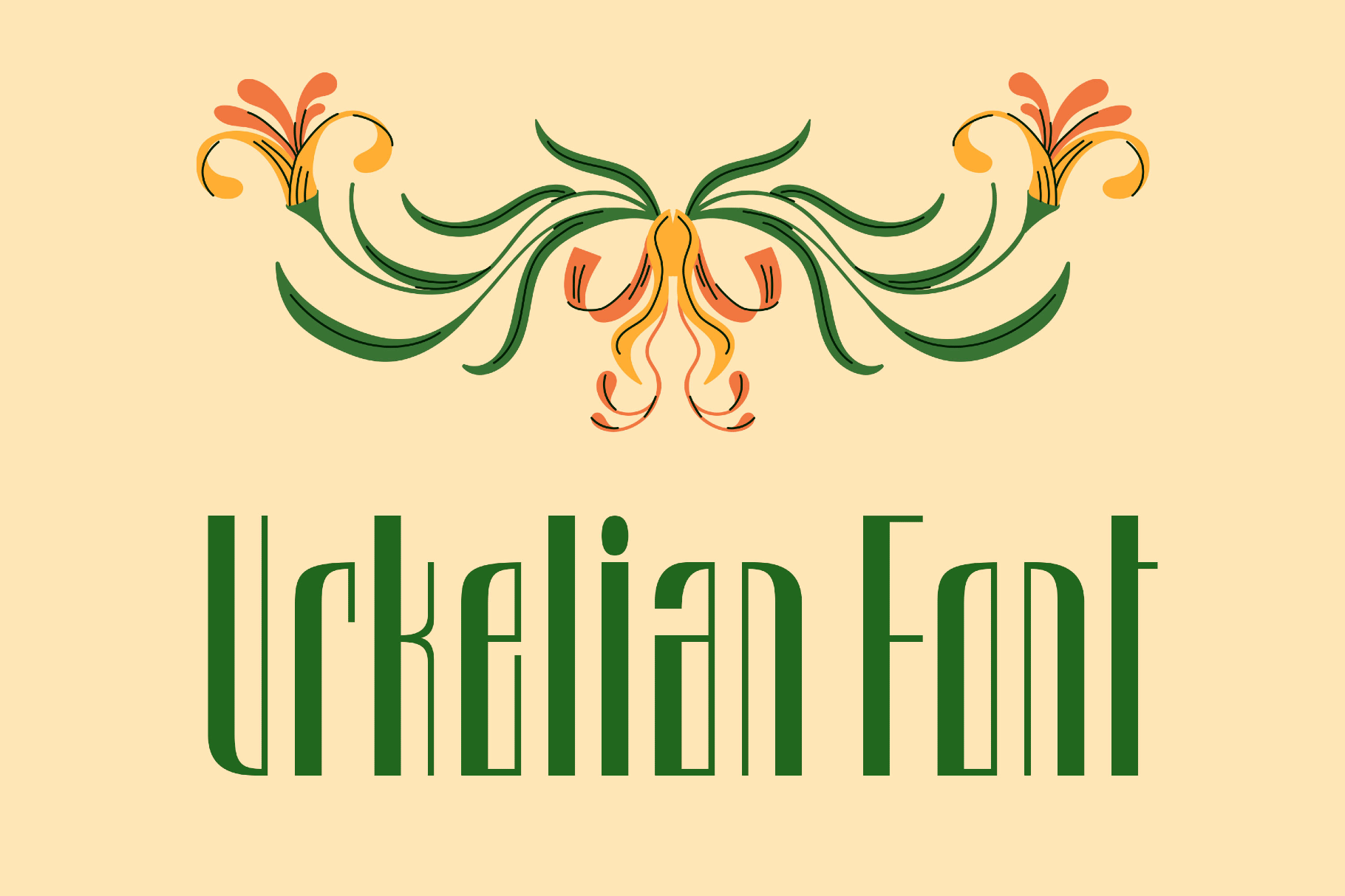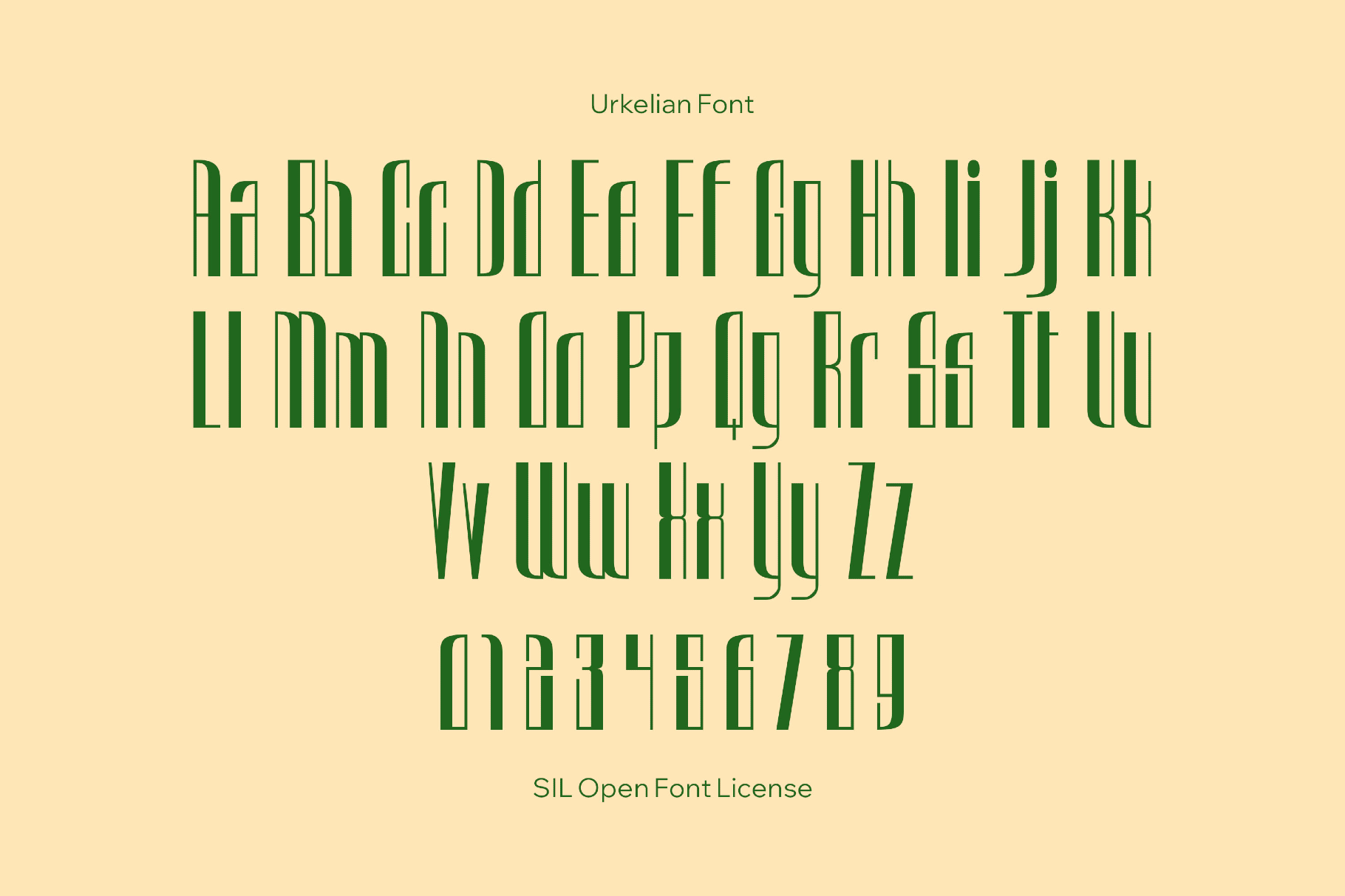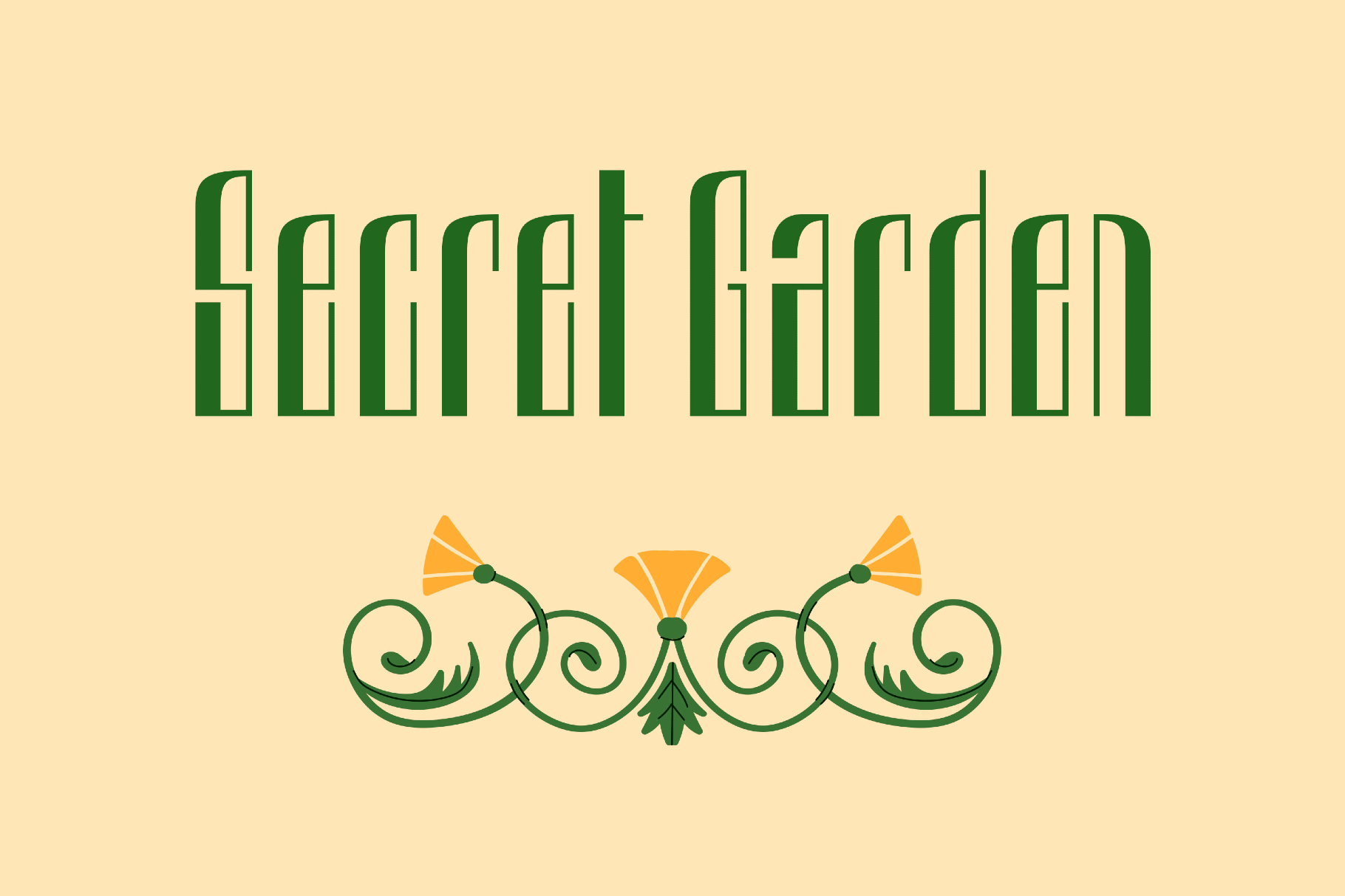
Urkelian Font
Urkelian
Urkelian is a chunky, off-kilter display font with awkward curves and nerdy bravado that recalls early-’90s sitcom title cards, novelty computer graphics, and mall-era pop culture kitsch. A tall silhouette that stacks words into architectural columns well suited to playful posters, ironic branding, title cards for video, meme graphics, retro merch, magazine covers, section headers, character-driven logos, and social visuals.